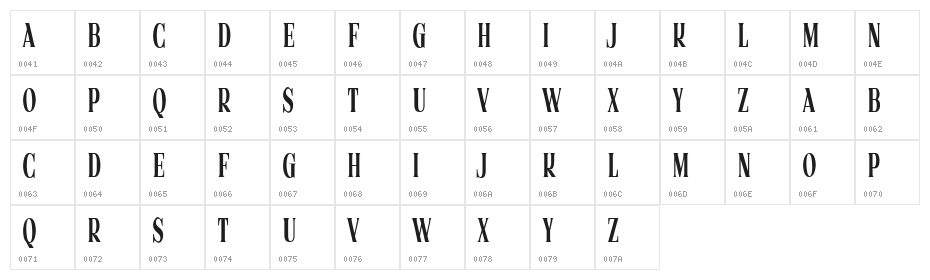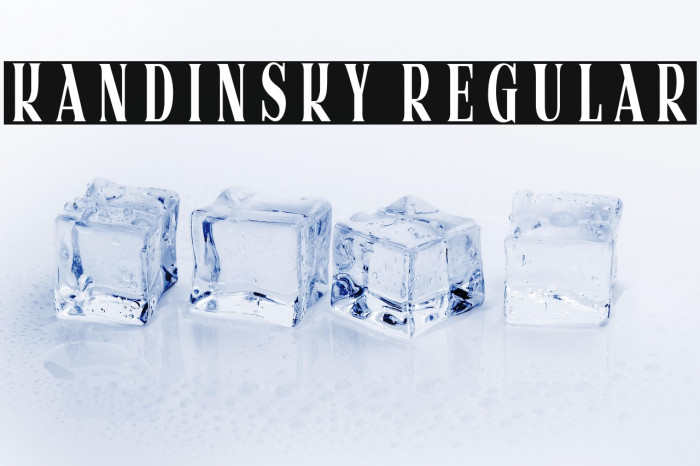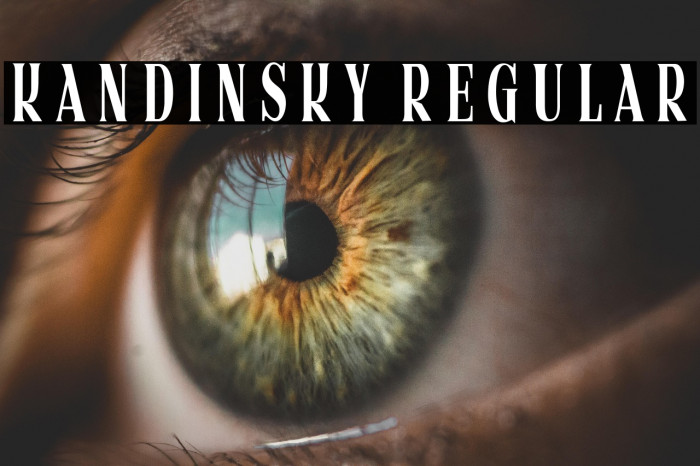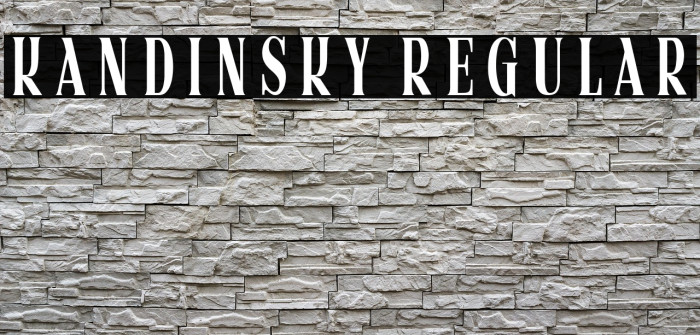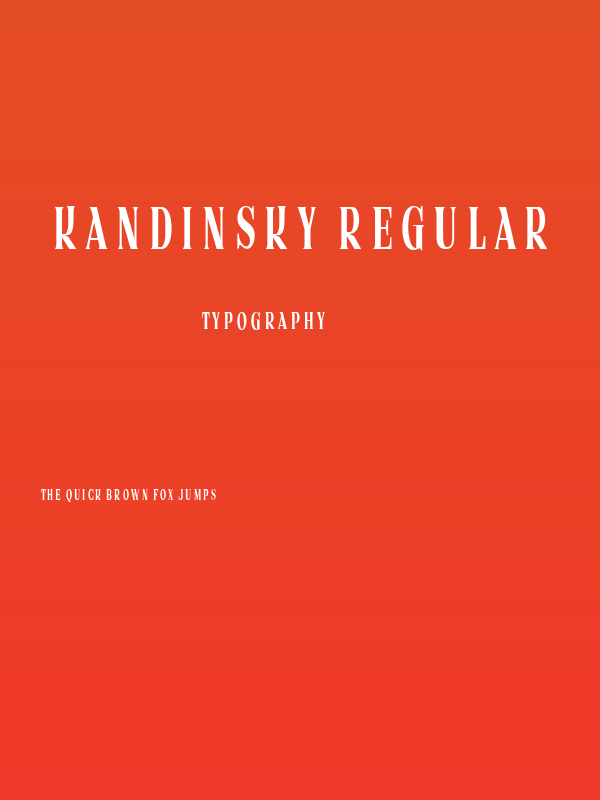
Kandinsky Regular Font
Kandinsky Regular Description
This font features a bold and striking design with high contrast between thick and thin strokes, giving it a dramatic and elegant appearance. The serifs are pronounced and sharp, adding a touch of sophistication and classic style. The characters are well-proportioned, with a slight vertical emphasis that enhances its formal and authoritative look. The overall style is reminiscent of traditional serif fonts but with a modern twist, making it suitable for a variety of design applications. The spacing between characters is normal, ensuring readability while maintaining its distinctive aesthetic.